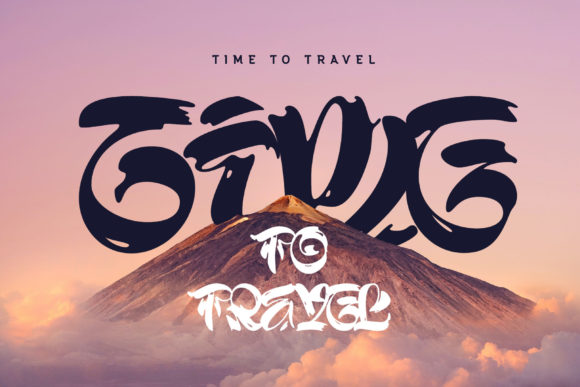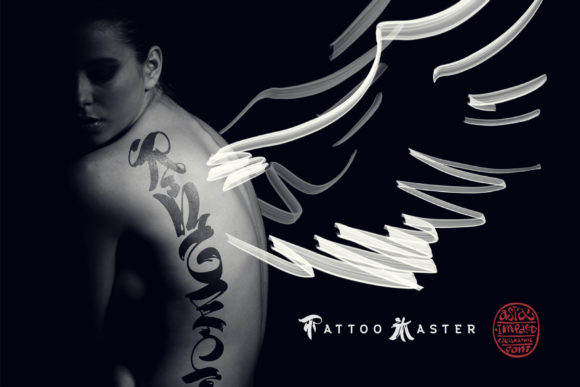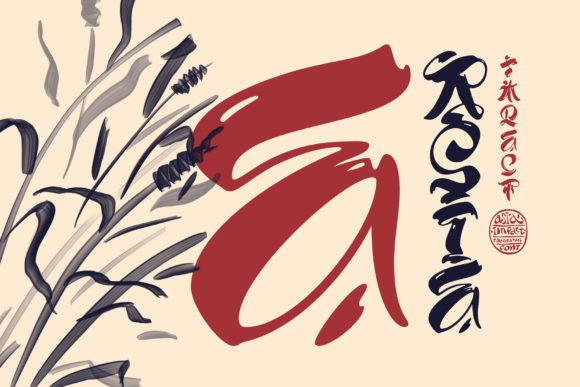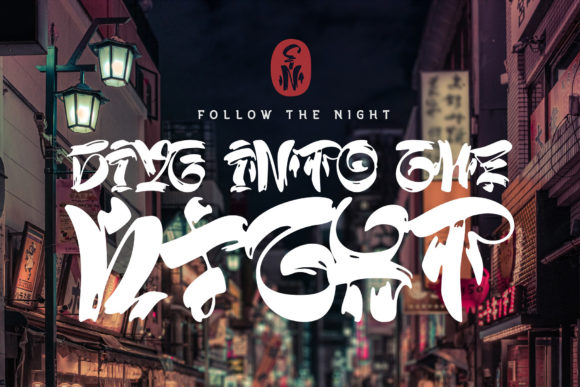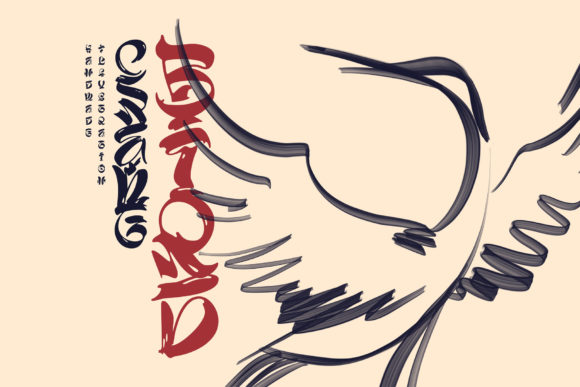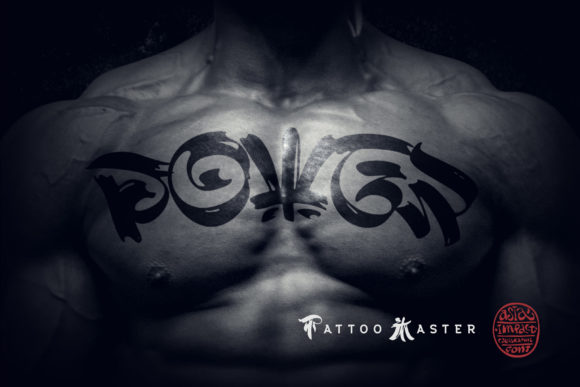
Introducing Asia Impact Font: The Ultimate Display Font for Stunning Designs
Are you tired of using the same old fonts for your designs? Look no further! Asia Impact Font is here to revolutionize your creative projects with its unique and cool design. This display font is perfect for designers and crafters who want to add a touch of elegance and sophistication to their work.
What Makes Asia Impact Font Stand Out?
Asia Impact Font is a one-of-a-kind display font that is designed to make a statement. Its unique and stylish design makes it perfect for a variety of applications, from food menus to posters, flyers, and prints. The font’s clean and crisp lines, combined with its bold and edgy style, make it a versatile choice for any design project.
With Asia Impact Font, the possibilities are endless! Whether you’re a designer, crafter, or DIY enthusiast, this font is perfect for adding a professional touch to your projects. Use it to create stunning food menus, eye-catching posters, or beautiful prints. The font’s versatility and uniqueness make it an excellent choice for a wide range of applications, including:
- Food menus and restaurant branding
- Posters and flyers for events and promotions
- Print designs, such as brochures and business cards
- Digital designs, such as social media graphics and website headers
Why Choose Asia Impact Font?
There are many reasons why Asia Impact Font stands out from the rest. Here are just a few:
- Unique Design: Asia Impact Font has a one-of-a-kind design that will set your projects apart from the rest.
- High-Quality: The font is designed with high-quality and precision, ensuring that it looks stunning in any application.
- Versatile: Asia Impact Font is perfect for a wide range of applications, from print to digital designs.
Tips for Using Asia Impact Font
Here are a few tips for using Asia Impact Font to get the most out of your designs:
- Experiment with Different Sizes: Asia Impact Font looks great in a variety of sizes, so don’t be afraid to experiment and find the perfect size for your project.
- Pair it with Other Fonts: Asia Impact Font pairs well with other fonts, so try combining it with a sans-serif font for a unique and stylish look.
- Use it for Headlines: Asia Impact Font is perfect for headlines and titles, so use it to add a touch of elegance and sophistication to your designs.
| Font Name | Asia Impact Font |
| Author | Gleb Guralnyk |
Asia Impact Font is a cool and uniquely designed display font that is perfect for designers and crafters who want to add a touch of elegance and sophistication to their work. With its high-quality design, versatility, and ease of use, this font is sure to become a staple in your design toolkit. So why wait? Download Asia Impact Font today and explore its endless possibilities!
Whether you’re a seasoned designer or a DIY enthusiast, Asia Impact Font is the perfect choice for any design project. Its unique and stylish design makes it perfect for a wide range of applications, from food menus to posters, flyers, and prints. So go ahead, get creative, and see what amazing designs you can create with Asia Impact Font!